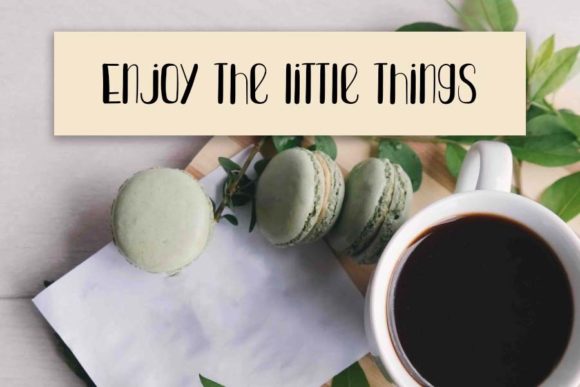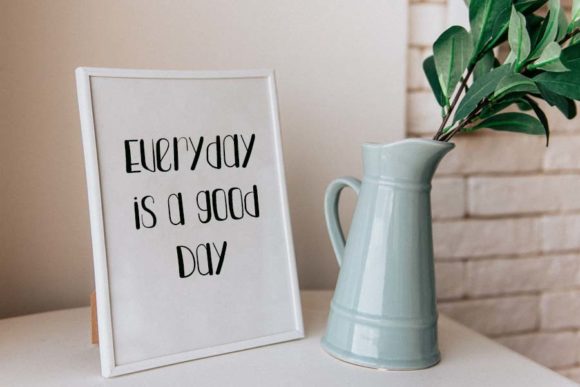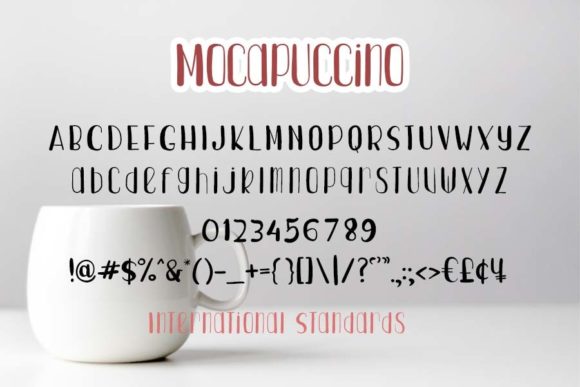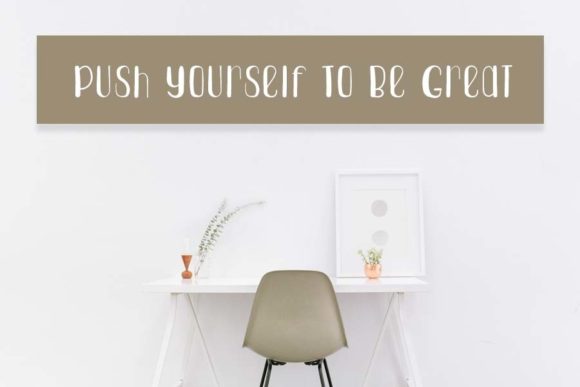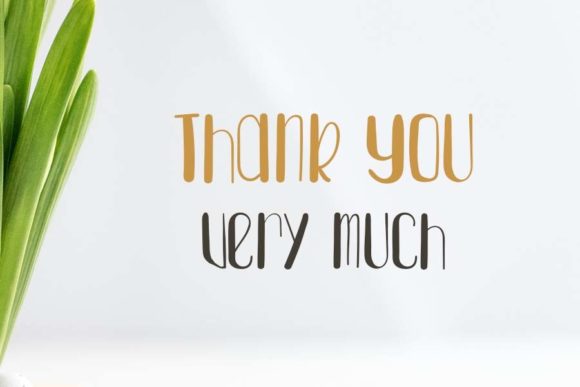
Mocapucinno Font
About Mocapucinno Font
Mocapucinno is a cute and trendy handwritten font. Its natural and unique style makes it incredibly fitting to a large pool of designs. this font is the perfect fit for all of your logos, branding, posters, and much more!